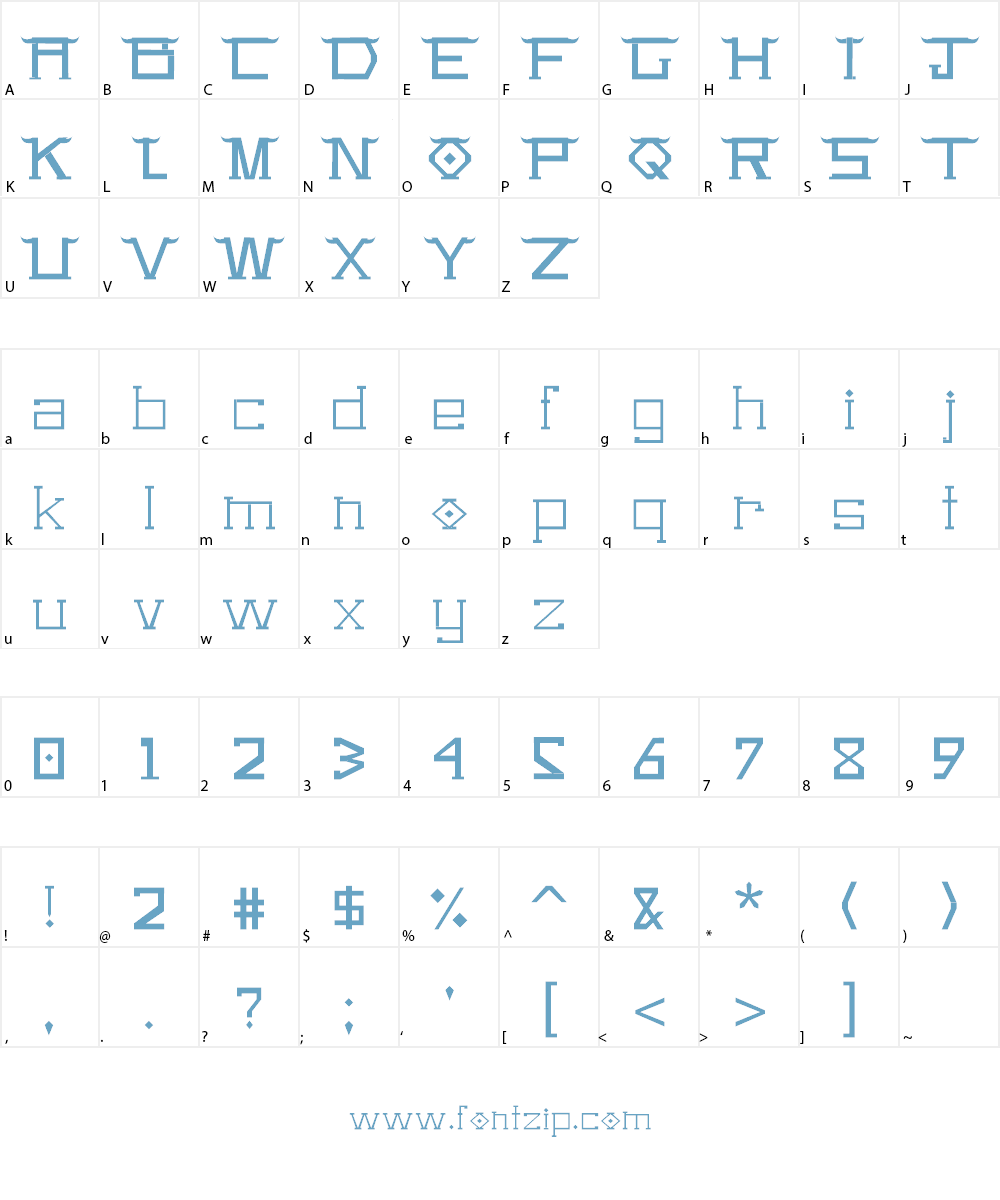
Here's a font created for a project at school. I wanted to tell a story about Vikings so I decided to make my own font to go with it :)
It's rather simple but, hey, it was my first self-made font !